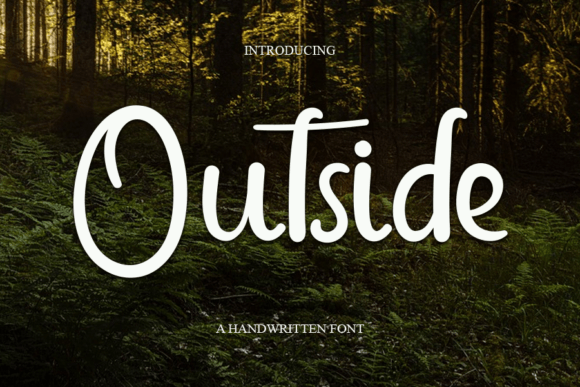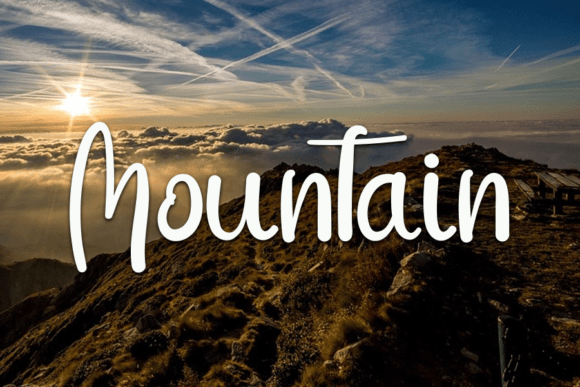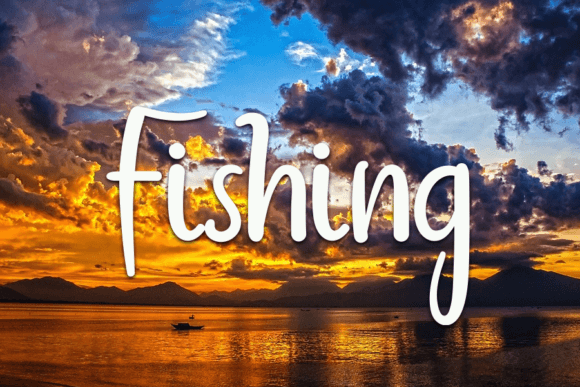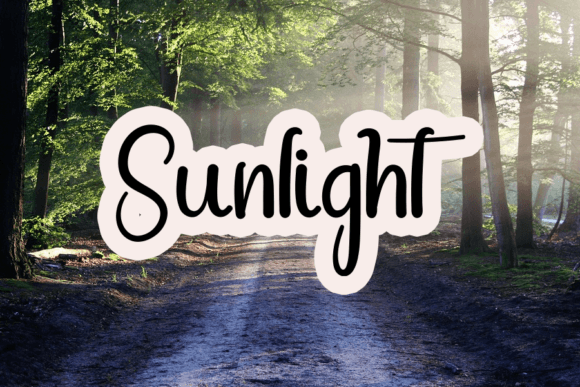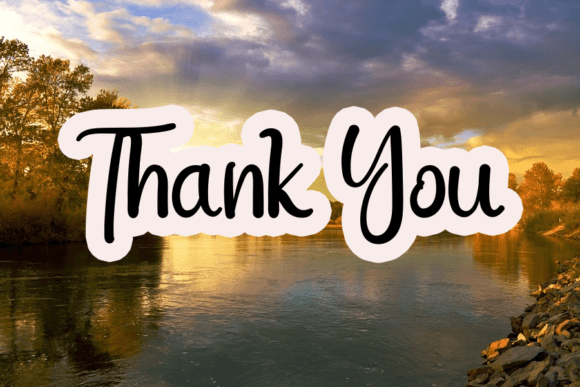
Outside Font
About Outside Font
Outside Font is a charming and approachable handwritten typeface designed to bring warmth and personality to your creative work. With its natural and balanced form, it mimics the casual flow of everyday handwriting, making it a versatile option for a wide range of design needs.
Whether you’re working on digital content, crafting custom greeting cards, or putting together presentations, the Outside font download offers a reliable and friendly style. Its clean lines and consistent character spacing make it especially useful for both professional and personal projects.
Ideal Use Cases for Outside Font
The adaptability of Outside Font makes it an excellent choice for:
• Crafting Projects – Add a warm, handwritten touch to labels, planners, and DIY decorations
• Greeting Cards – Use it for birthdays, holidays, thank-you notes, or everyday messages
• Digital Content – Perfect for YouTube thumbnails, Instagram posts, and Canva templates
• Presentations – Create approachable, visually engaging slides and headings
• Scrapbooking – Gives a personal, cozy aesthetic to memory books and journals
• Invitations – Use for casual wedding events, baby showers, or informal party invites
Key Features
• Handwritten Appeal – Designed to mimic casual handwriting with soft curves and friendly spacing
• Readable & Relaxed – Maintains clarity while providing a relaxed look
• Multilingual Support – Includes standard Latin characters, punctuation, and numerals
Why Choose the Outside Font?
The Outside font download is a perfect choice for creatives who want to add a relaxed and human feel to their design work. Its easygoing style fits beautifully into both professional branding and casual design pieces, offering a well-rounded handwritten option that doesn’t compromise on clarity or personality.
Whether you’re crafting social media graphics, designing a children’s worksheet, or just need a go-to handwritten font for multiple projects, Outside has you covered.